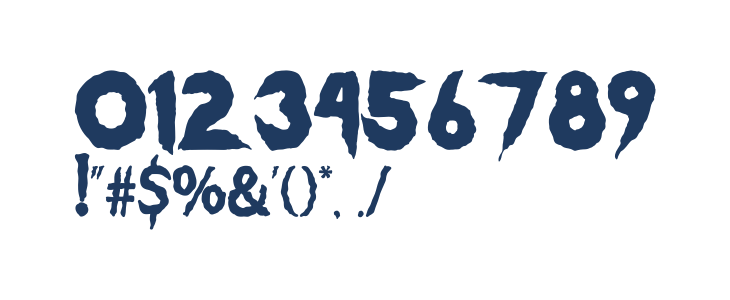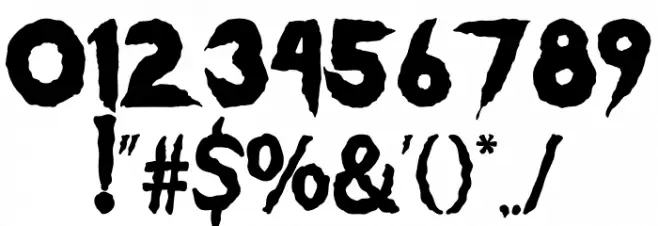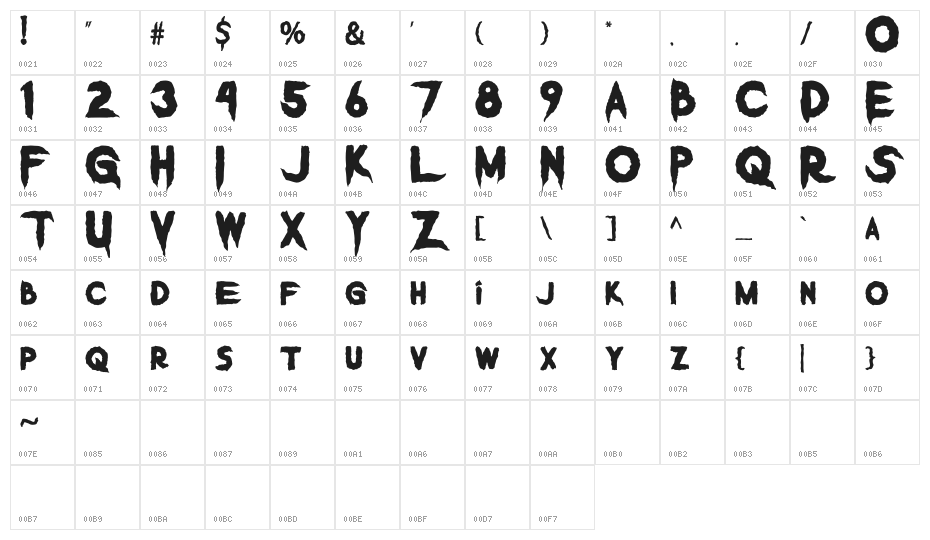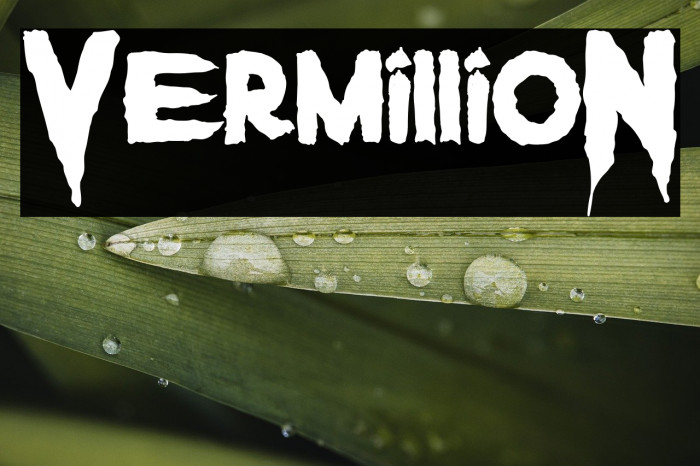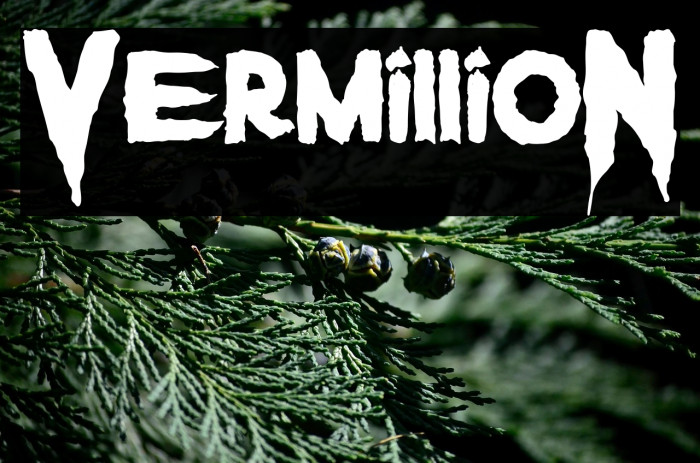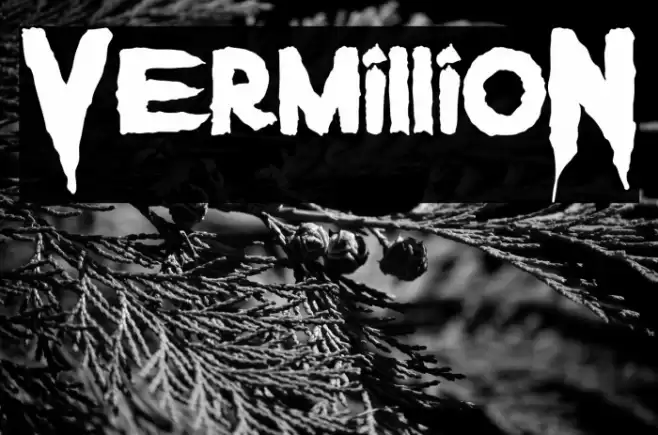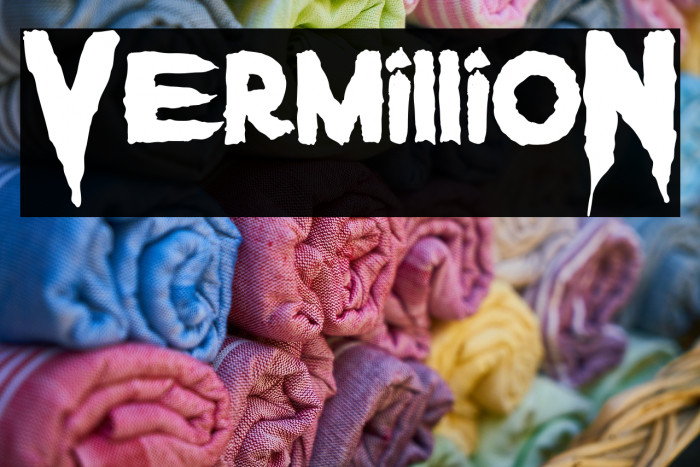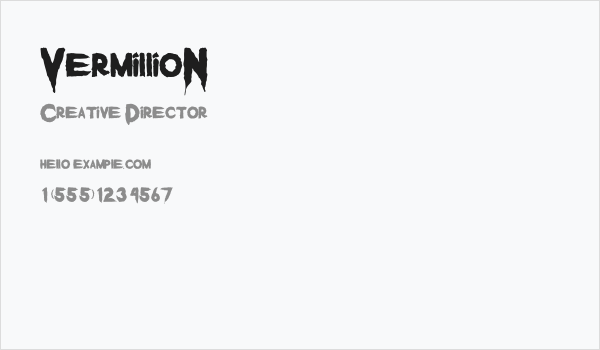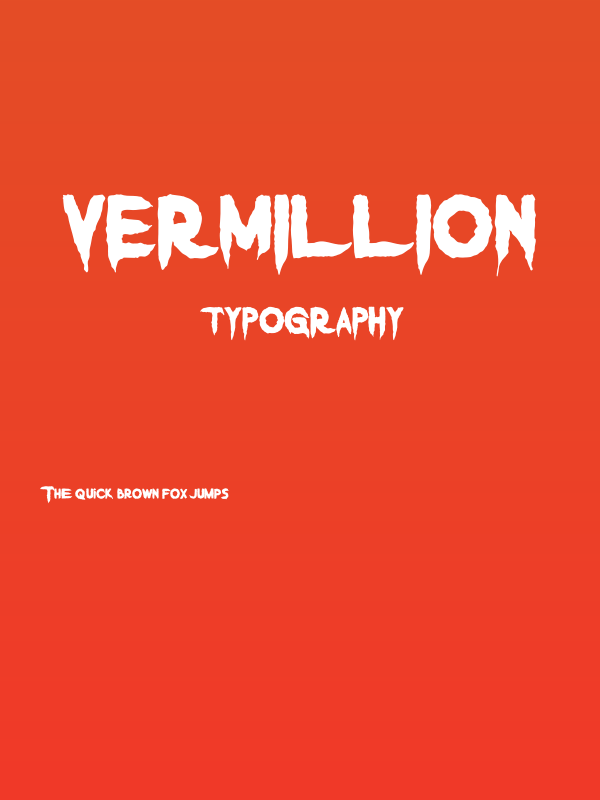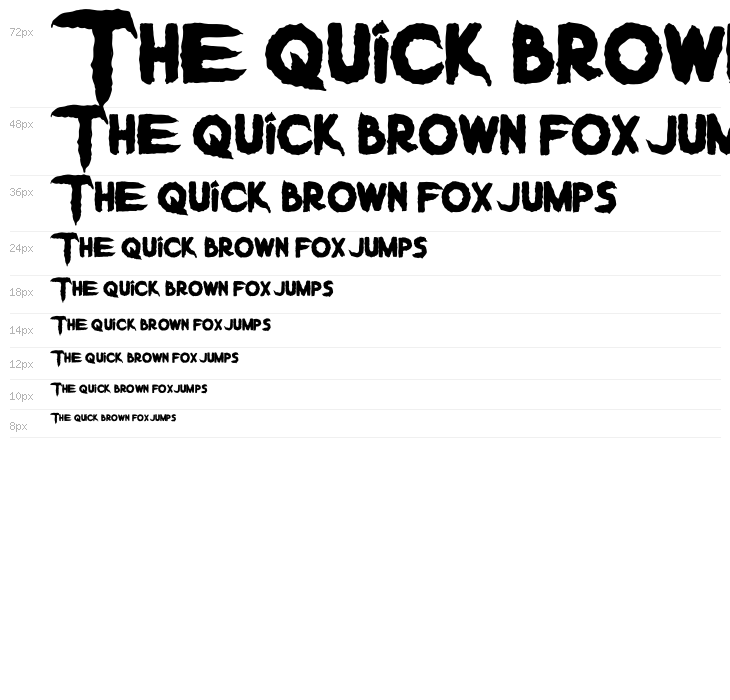
VermillioN Font
VermillioN Description
This font features a bold and dramatic style with sharp, jagged edges that give it a fierce and energetic appearance. The characters are heavily stylized, with irregular strokes that create a sense of movement and intensity. The uppercase and lowercase letters maintain a consistent design, emphasizing the font's unique personality. The numbers and special characters are equally bold, ensuring a cohesive look across all elements. This font is perfect for projects that require a strong visual impact and a touch of edginess.
| Proposed Projects | Ideal for horror movie posters, Halloween event flyers, edgy branding, and album covers. |